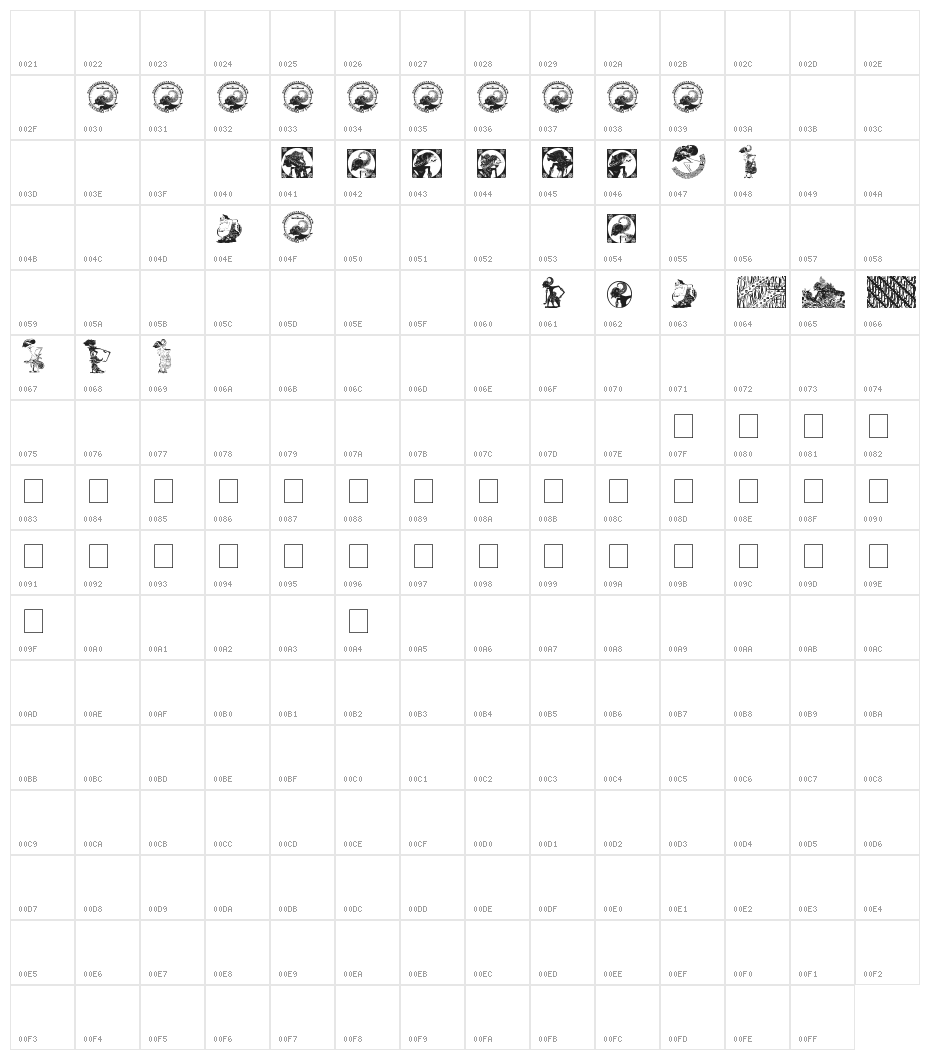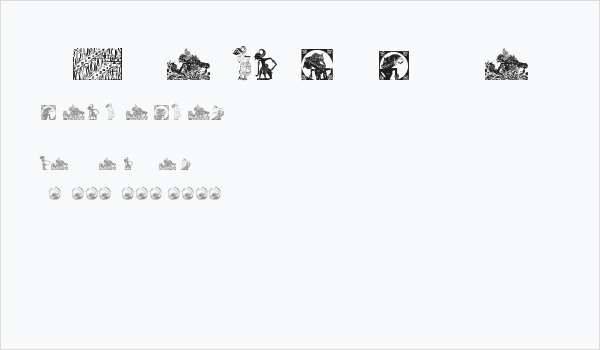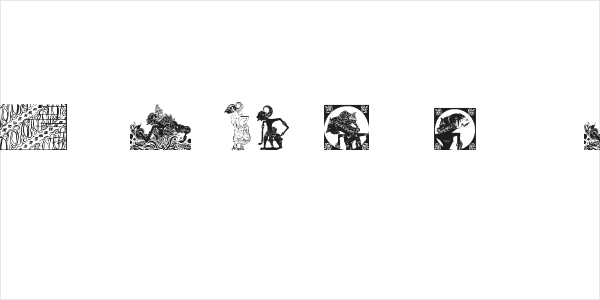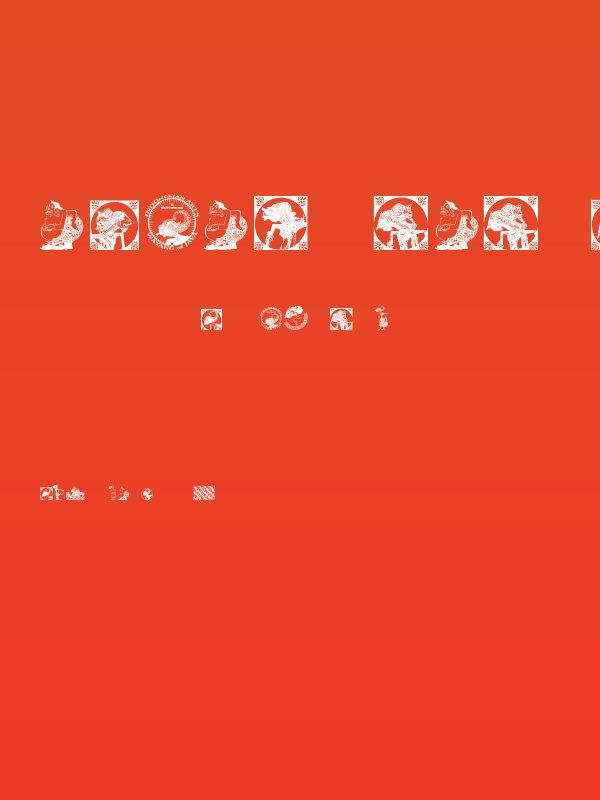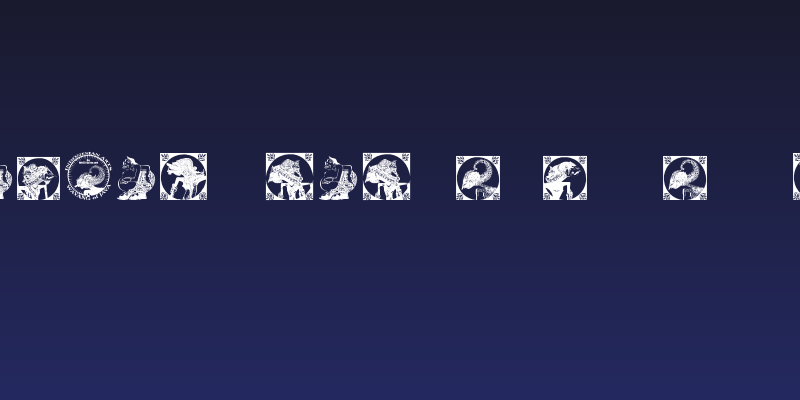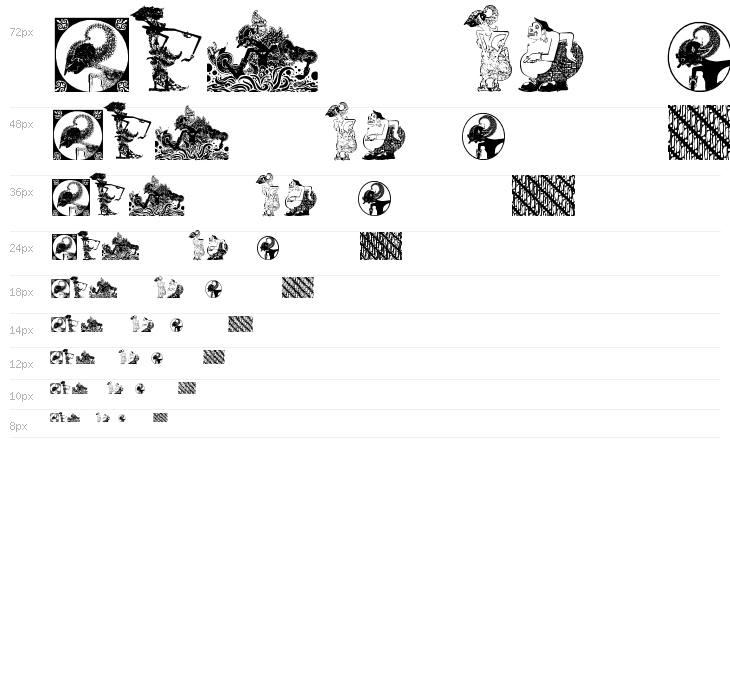
IndonesianArtsCulture Font
IndonesianArtsCulture Description
A decorative display font featuring intricate illustrations inspired by traditional Indonesian arts and culture, including wayang puppets and batik patterns. Each character is represented by a unique cultural motif rather than standard letterforms.
| Overall Style | Decorative, Ethnic, Artistic |
| Use Case | Logos, Headlines, Posters, Themed graphics |
| Proposed Projects | Cultural event posters, museum branding, educational materials, themed invitations, tourism brochures. |